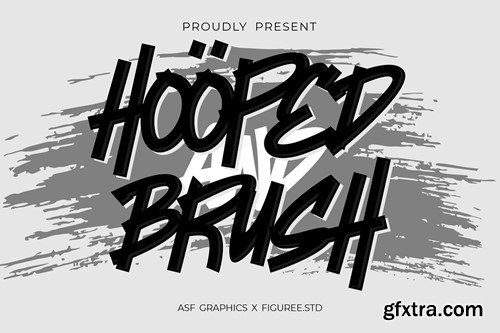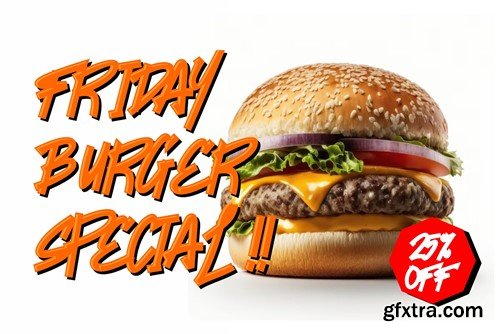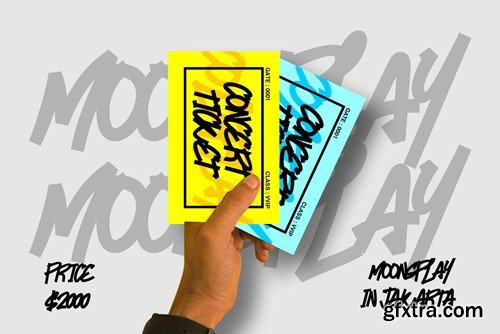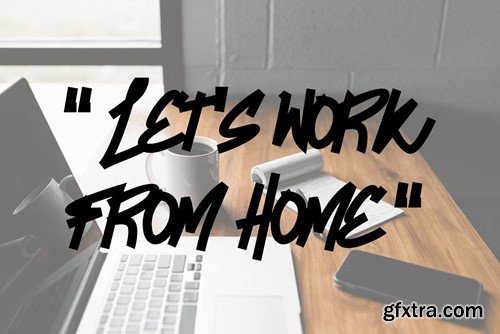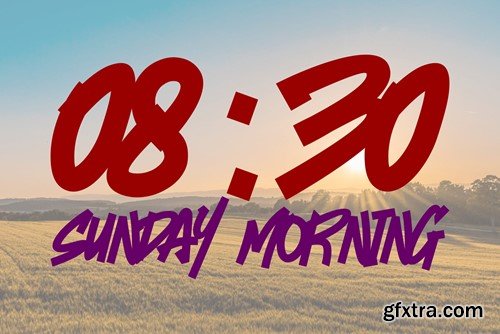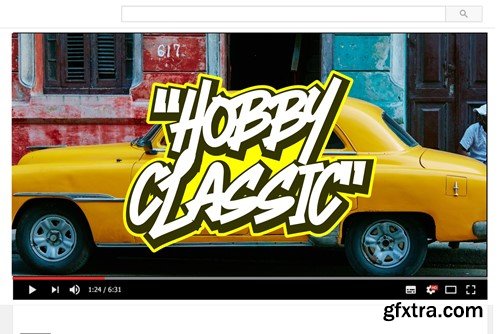
Hooped Brush - Natural Brush Font
Hooped Brush is a dynamic brush font that adds a touch of artistic flair to your designs. With its bold, expressive strokes and natural brush texture, this font exudes creativity and personality. Ideal for eye-catching headlines, posters, and branding, Hooped Brush effortlessly infuses your text with a sense of free-spirited energy. Get ready to make a bold statement with a brush font that's as unique and vibrant as your imagination.